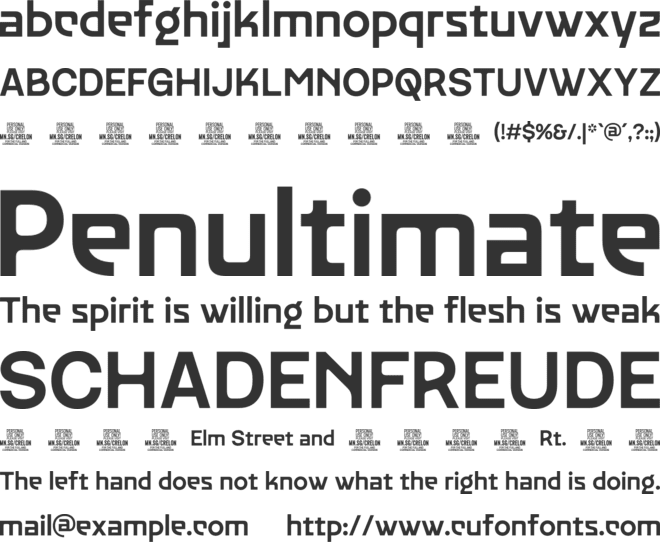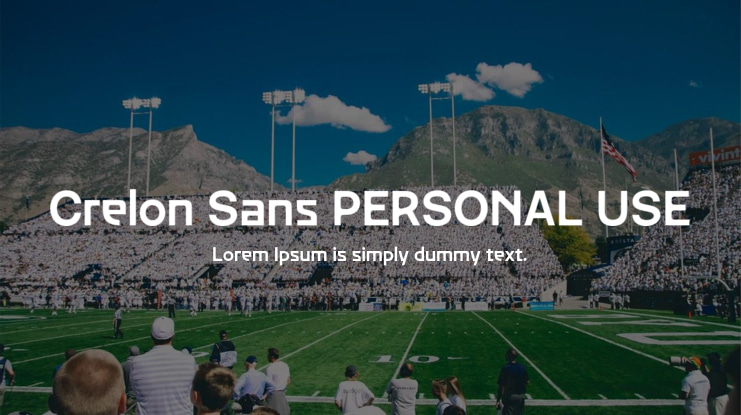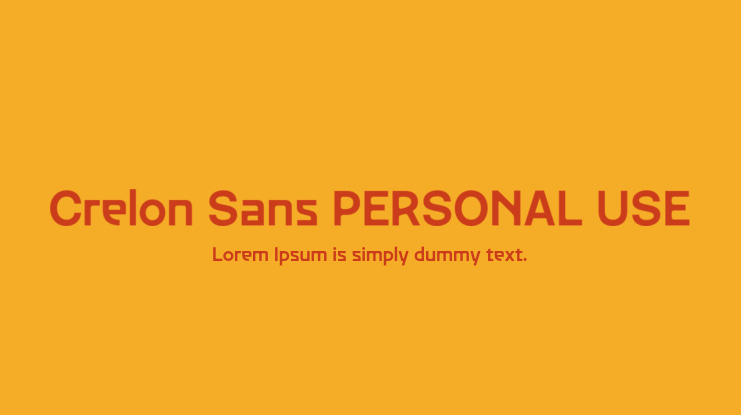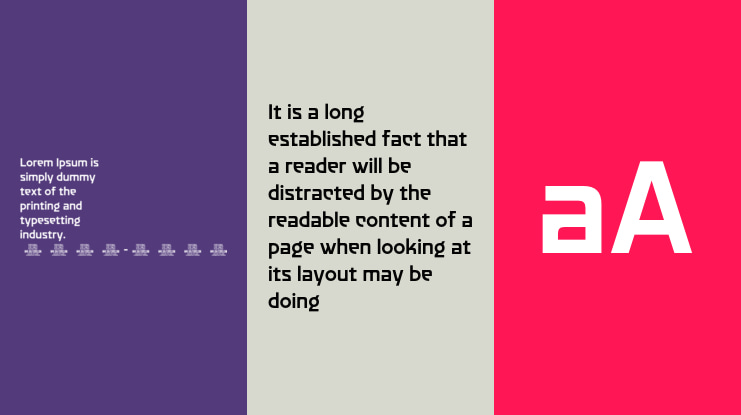
Crelon Sans PERSONAL USE Font
NOTE: This font is for PERSONAL USE ONLY!To purchase a commercial license, visit:https://www.mansgreback.com/product/crelon-sansCrelon Sans is a sturdy and modern sans-serif font, built with square shapes and hard corners, giving it a strong and industrial look. The letters possess a condensed form, which makes it a good option to be used for headlines and logos. It could easily fit into a futuristic or architechtural context.For questions, please visit www.mn.sg/faq